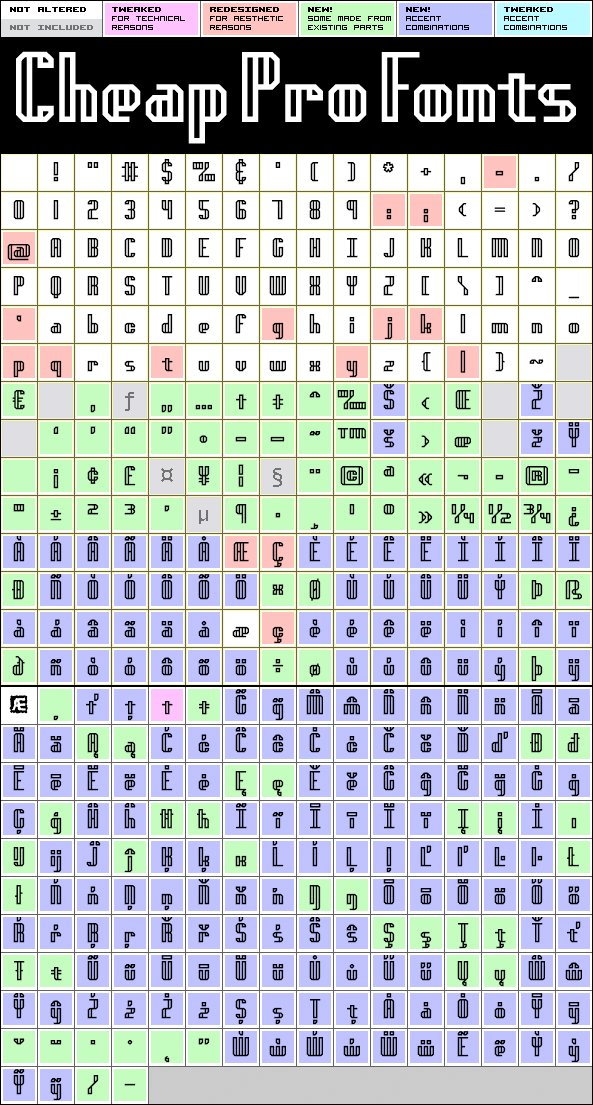
Genotype H BRK Pro
Genotype H BRK Pro by Brian Kent
A stylistic and square outline font by Brian Kent - suitable for headlines and logomarks. The original font contained no diacritics at all, so I have designed these to match. I also made the descenders on "g/j/p/q/y" a bit longer - so they would balance better with the letters with diacritics below the letter...
I redesigned the "t", but have included the original "t" as an alternate, available via your programs' glyph palette or using the OpenType functions "Stylistic Alternates"/"ss01".
Genotype H BRK Pro is a professionally reworked font that contains an extended character set for setting text in 65 languages requiring more than the basic A-Z!